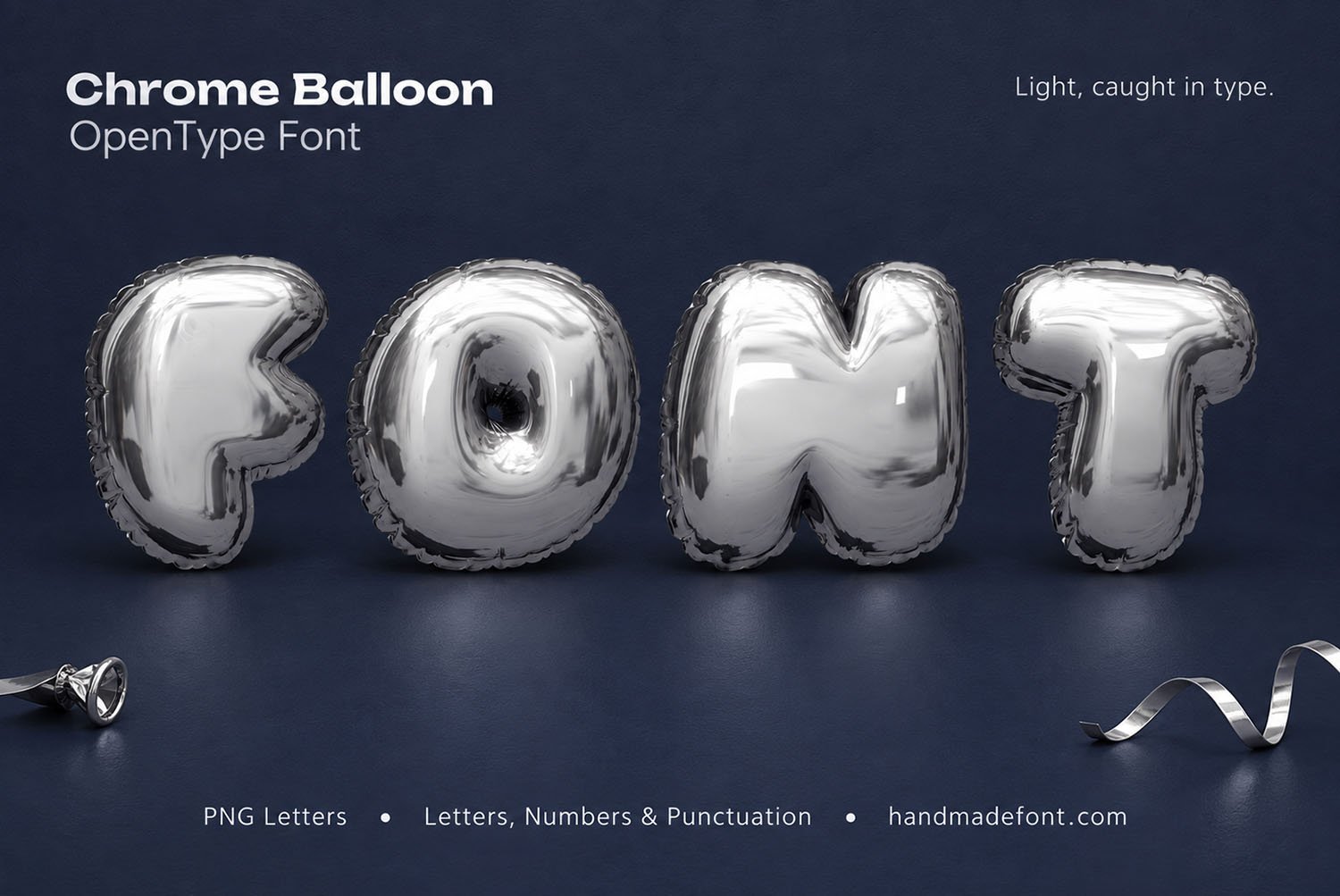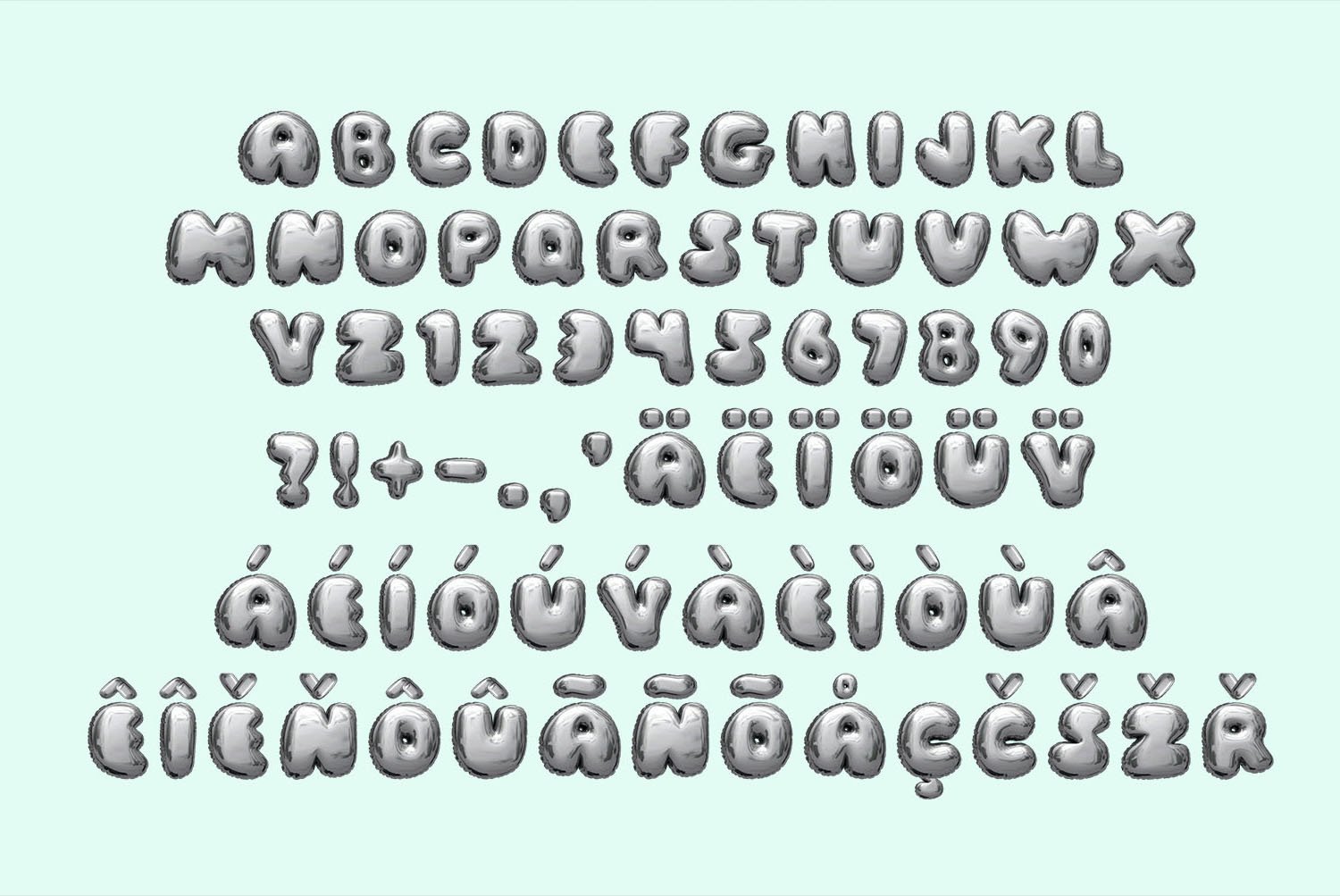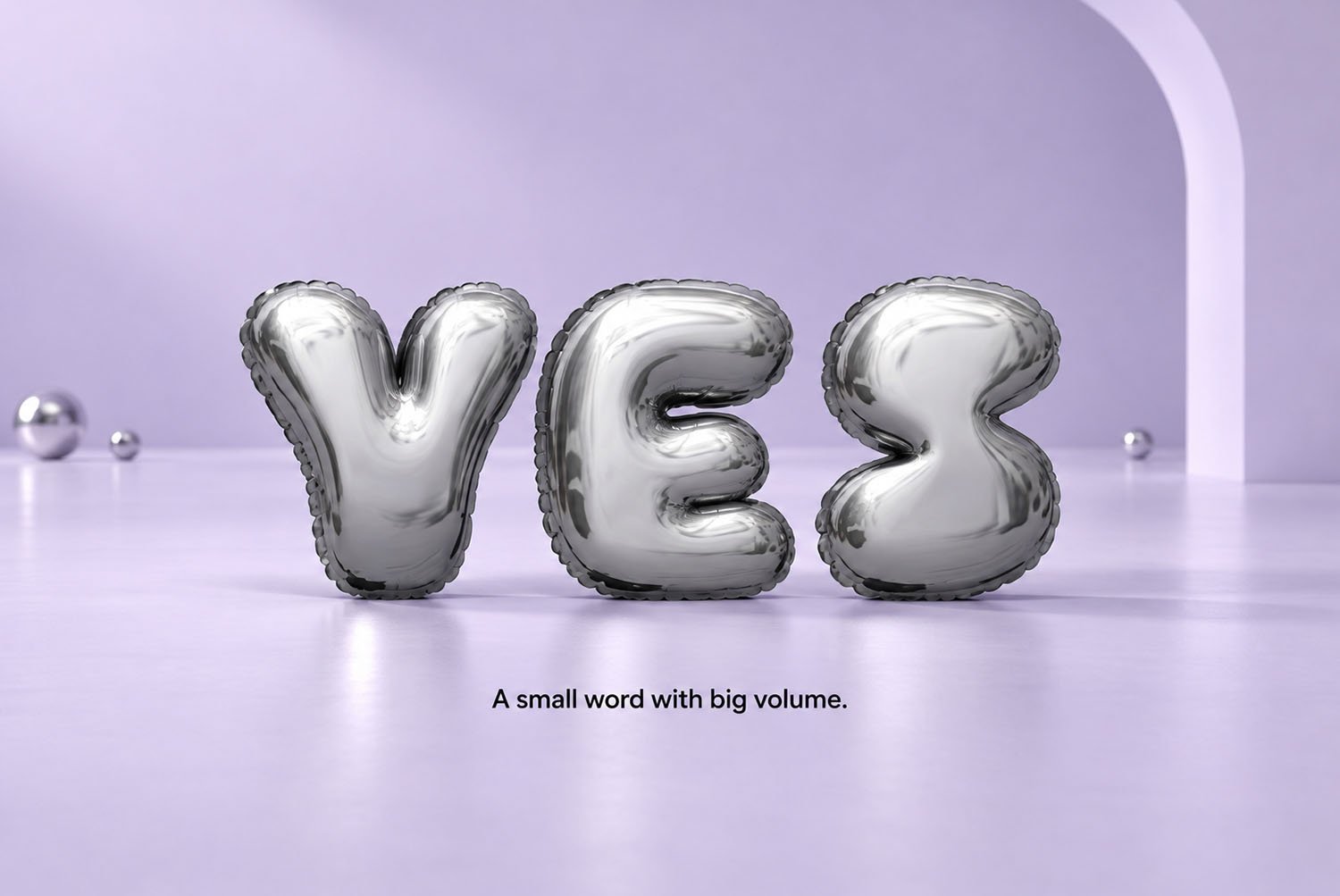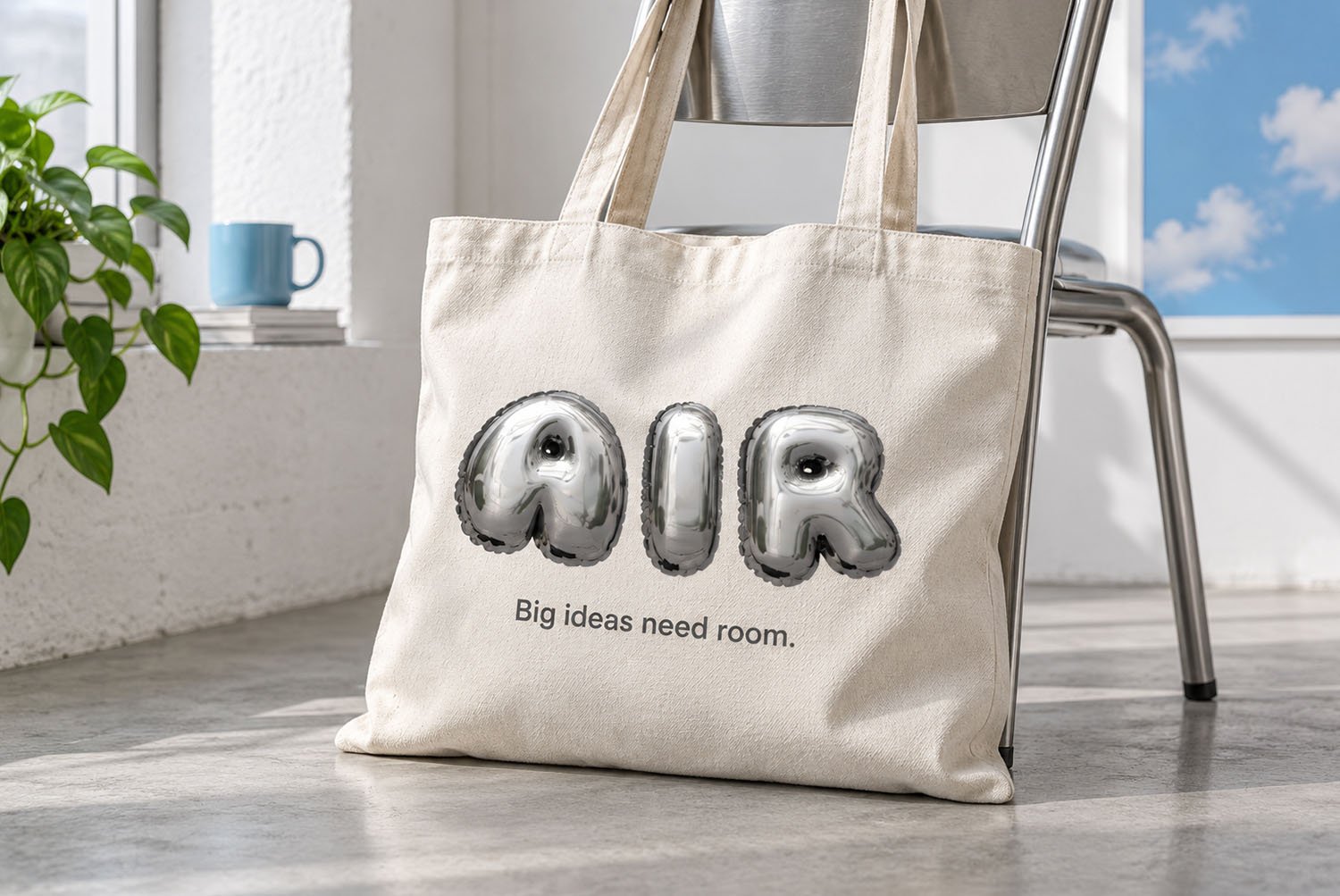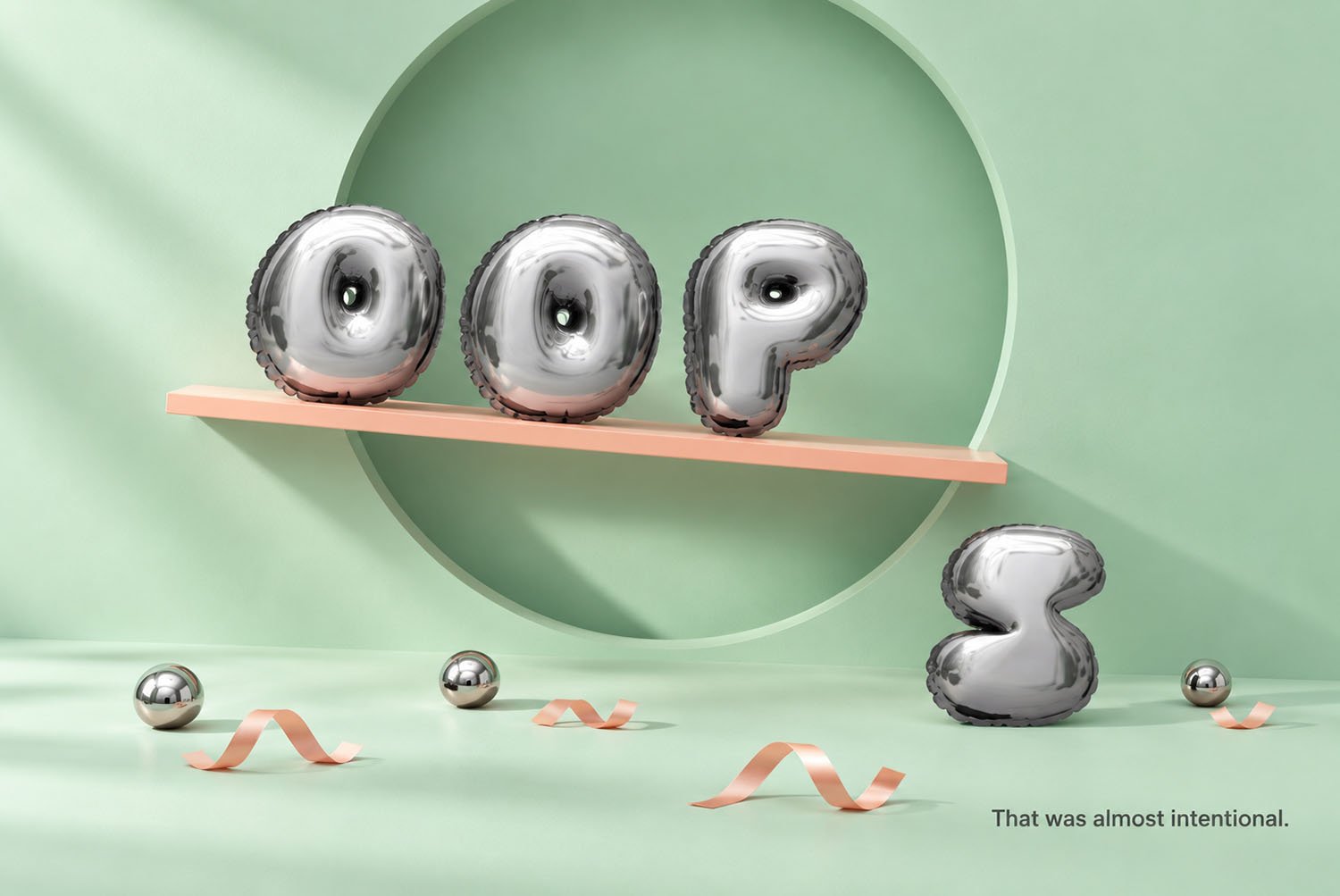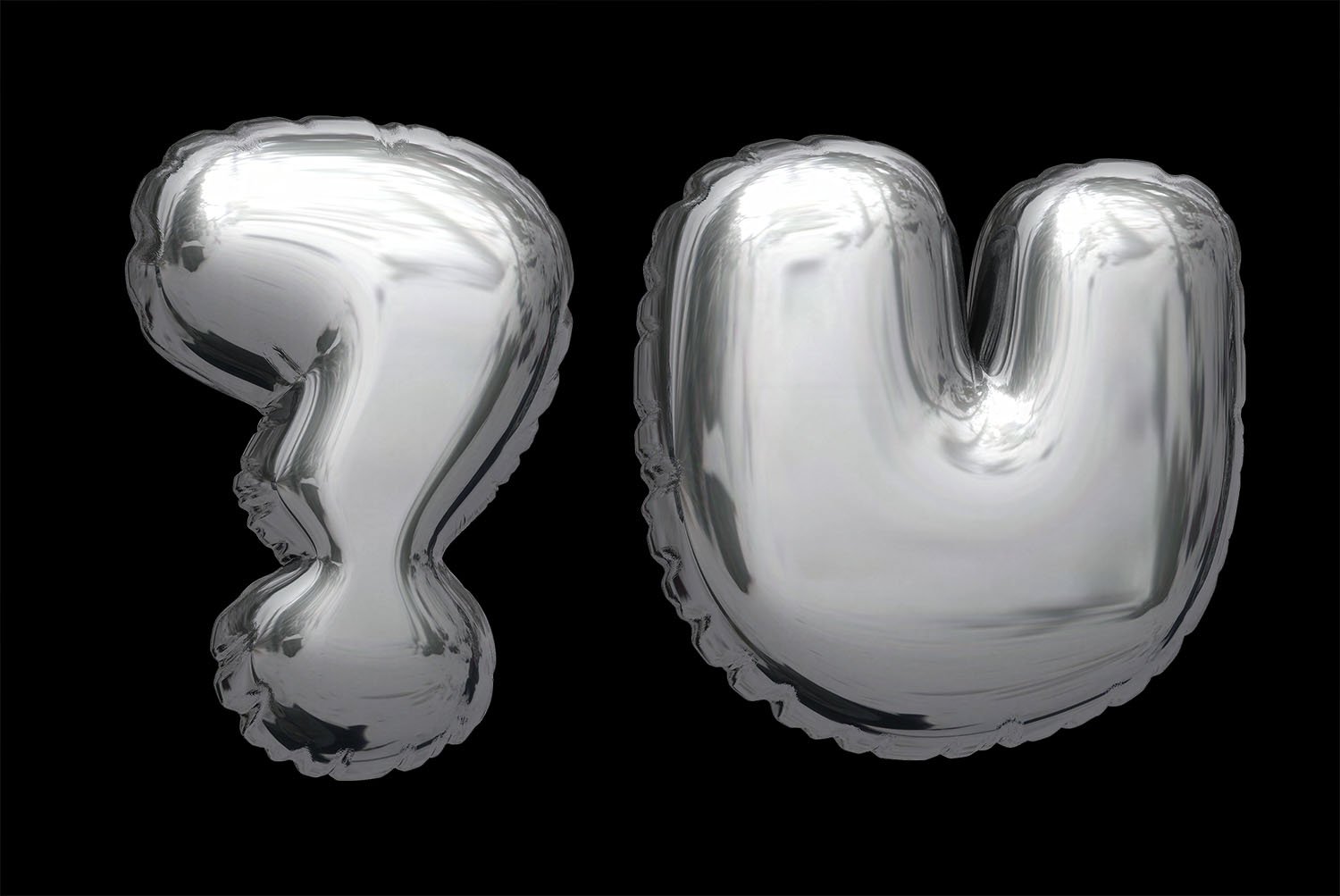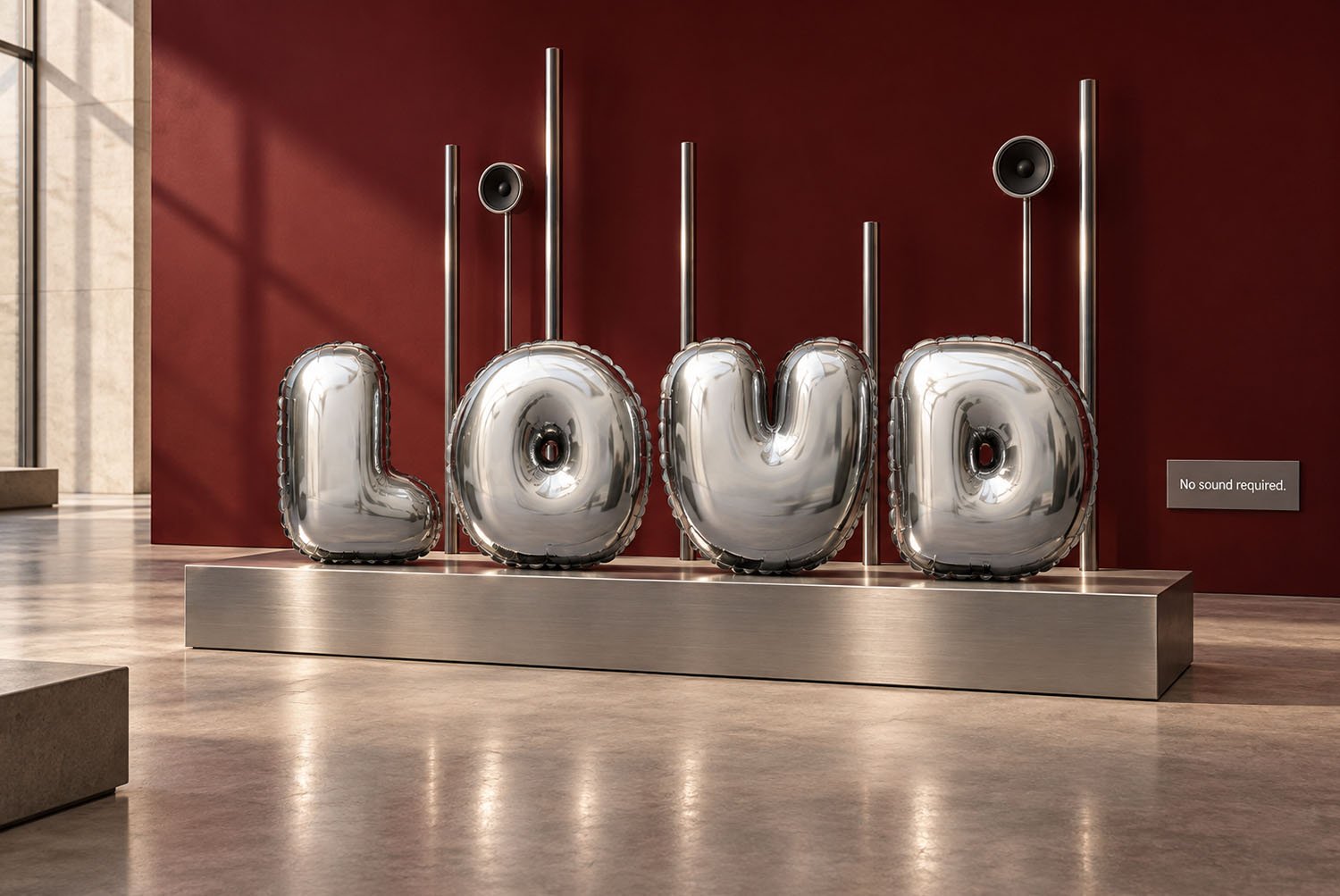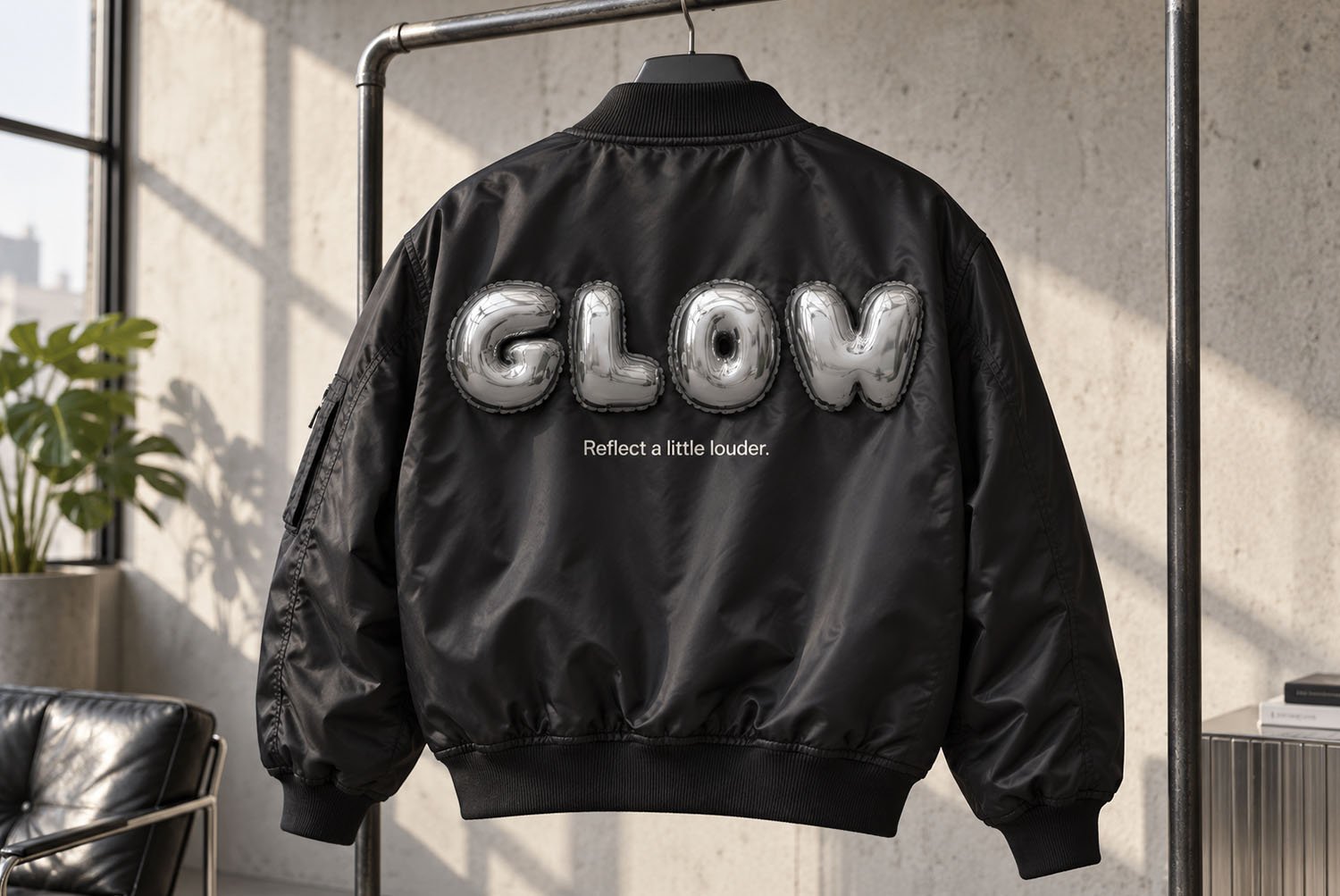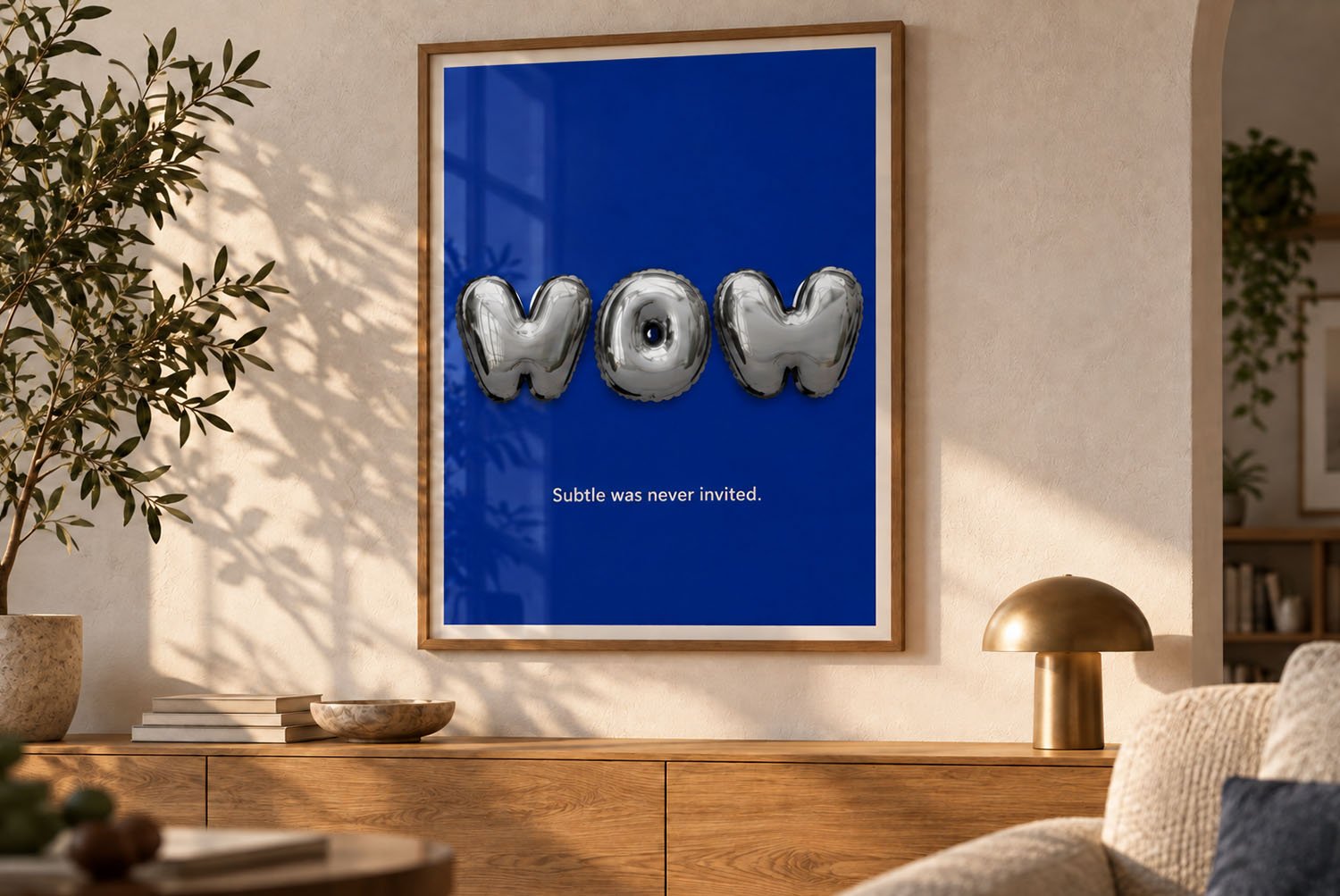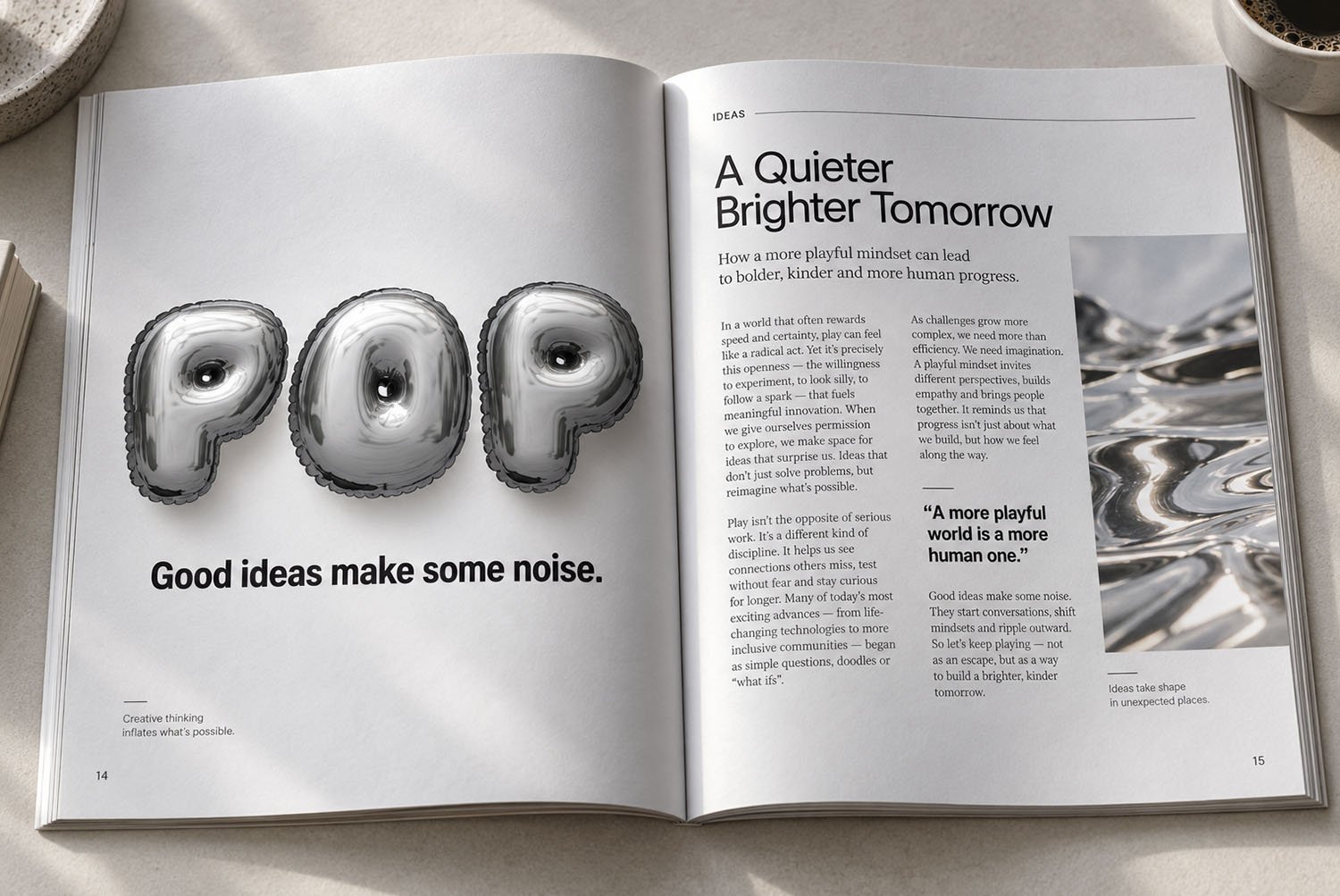
Chrome Balloon Font
Chrome Balloon Font brings the playful shine of silver party balloons to every design. Its rounded, inflated letters combine a bold 3D appearance with polished chrome reflections, creating typography that feels festive, futuristic, and instantly eye-catching. Use it for birthday invitations, event posters, album artwork, social media graphics, branding, packaging, headlines, and playful editorial layouts. The included OTF font makes typing fast and convenient, while every character is also supplied individually as a high-resolution PNG file with a transparent background. Mix, arrange, and layer the PNG letters to create custom compositions with realistic metallic balloon texture and strong dimensional impact.